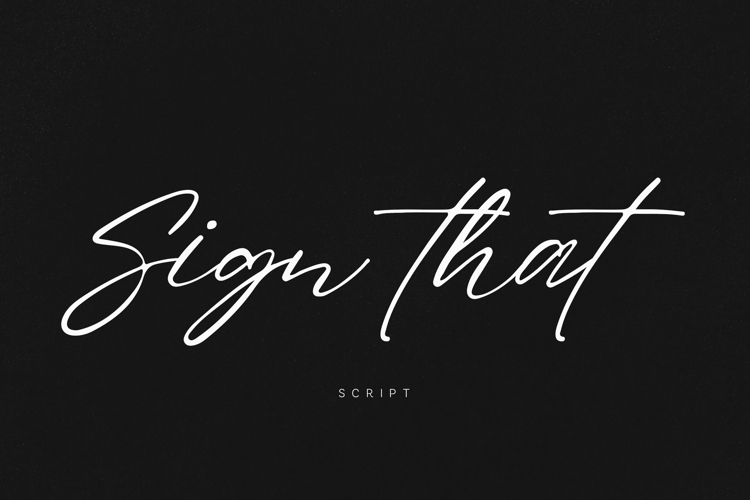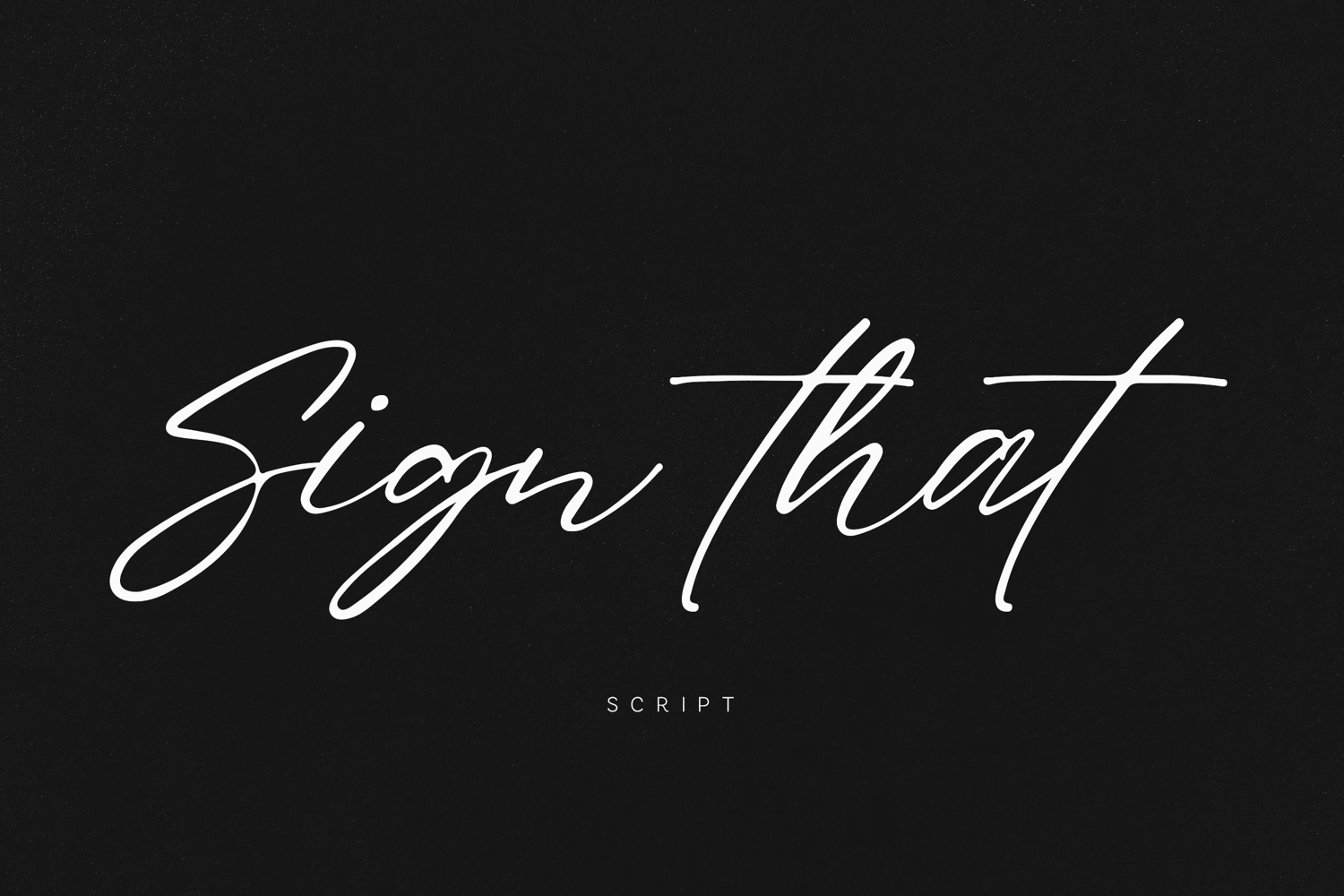
Sign That Script Elegant Signature Calligraphy
Sign That is a refined script font inspired by natural signature writing and modern calligraphy flow. Designed with smooth strokes and balanced curves, it delivers a clean, elegant look that feels both stylish and effortless.
This typeface combines fluid movement with clarity, making it ideal for high-end branding, logo design, and sophisticated visual compositions. Each letter is crafted to maintain rhythm and consistency, ensuring beautiful results across both large headlines and detailed typography.
Sign That brings a soft, contemporary aesthetic while maintaining strong readability and visual harmony.
• Smooth connecting script
• Elegant handwritten style
• Clean and balanced forms